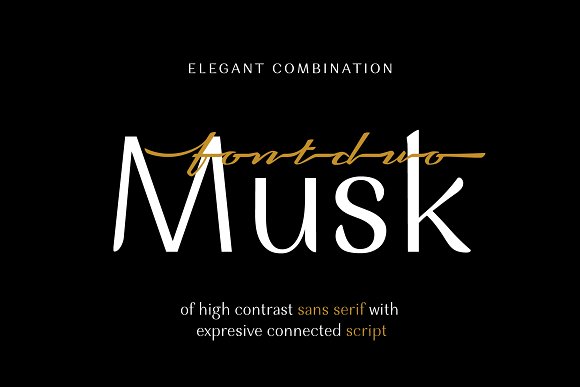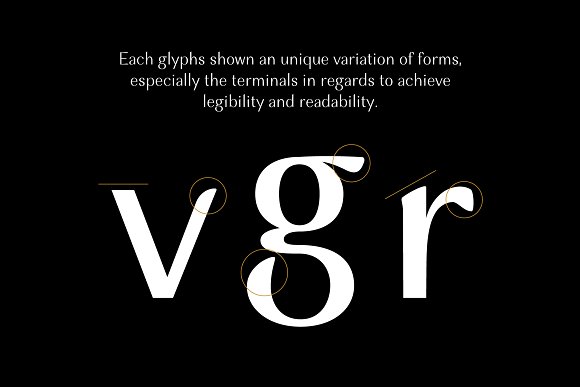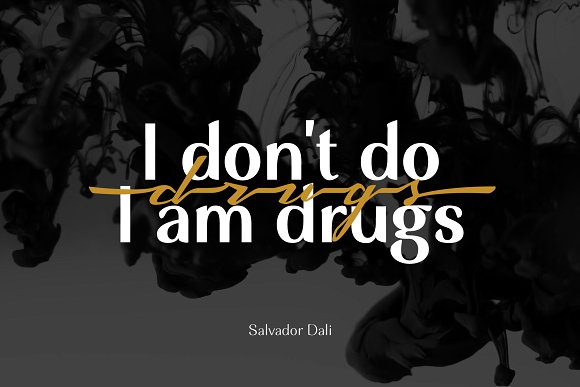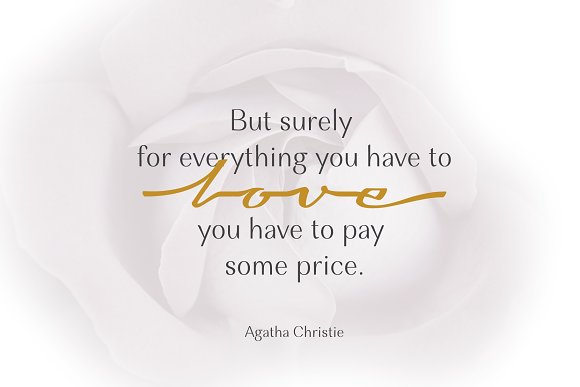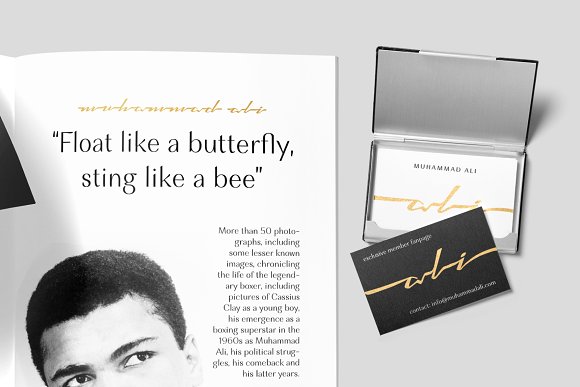
Musk Font Duo
Taking the name from subtance of the best quality perfumery, Musk present an elegant form of high contrast sans serif combine with an expresive connected script. The sans serif contain three weight; regular, medium and bold within it’s quality for display and also text. Each glyphs shown an unique variation of forms, especially the terminals in regards to achieve legibility and readability. The sans serif contain three weight; regular, medium and bold within it’s quality for display and legible for body text. With over than 240 glyphs.